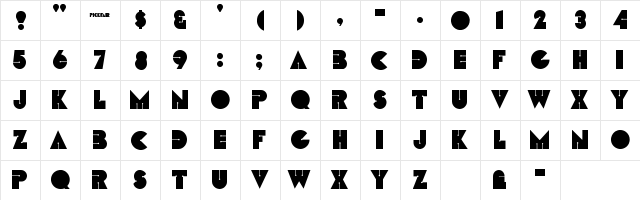
DXS Pickfair Regular
Design Context for DXS Pickfair Typeface
DXS Pickfair is a composed and adaptable typeface that performs quietly and consistently across a wide range of design contexts.